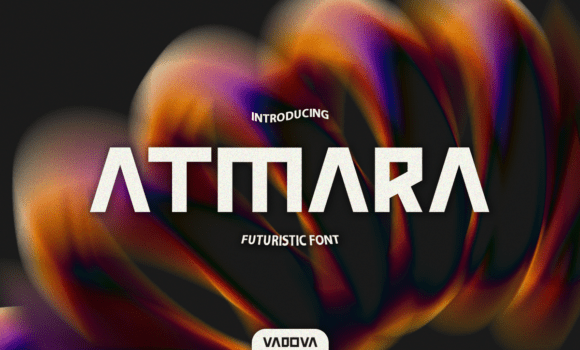
atmara
Atmara Font – Free Download Introduction to Atmara Font Atmara is a sharp, geometric futuristic display font built for bold visual identities, sci-fi titles, tech branding, and modern editorial layouts. 📸 Preview Gallery 6 images 📌 Product Name Atmara Font